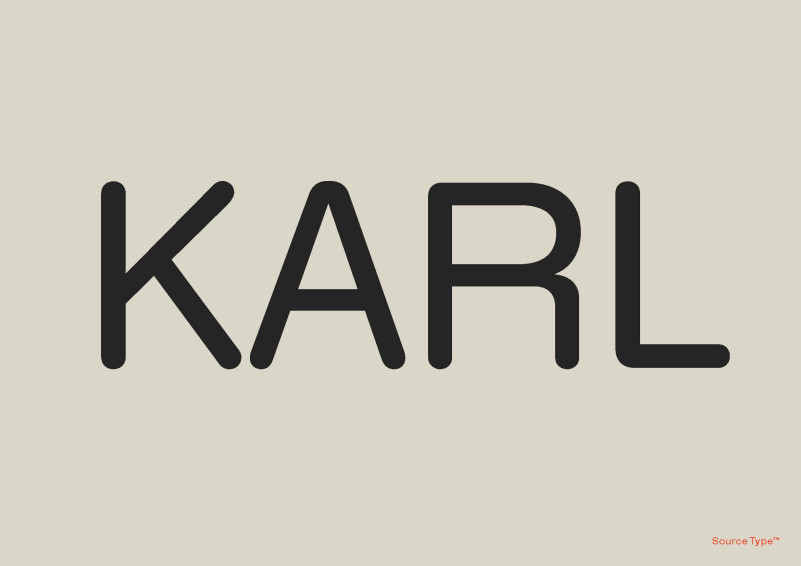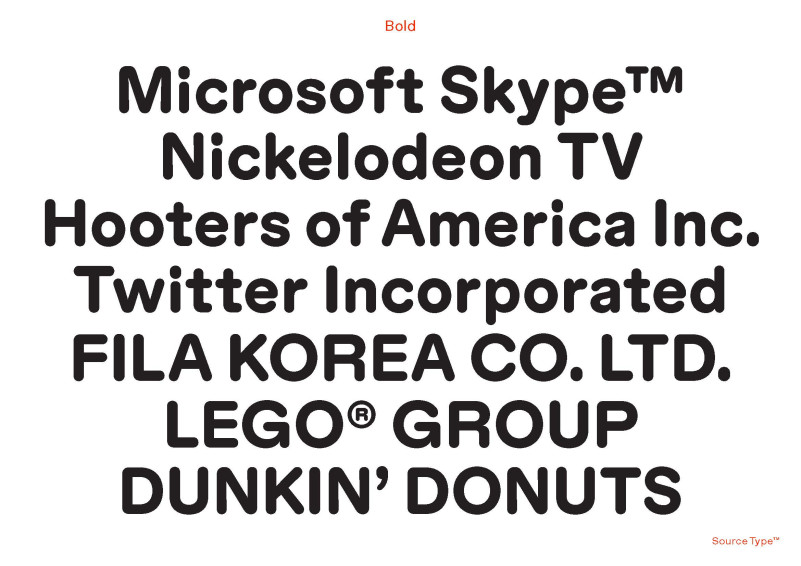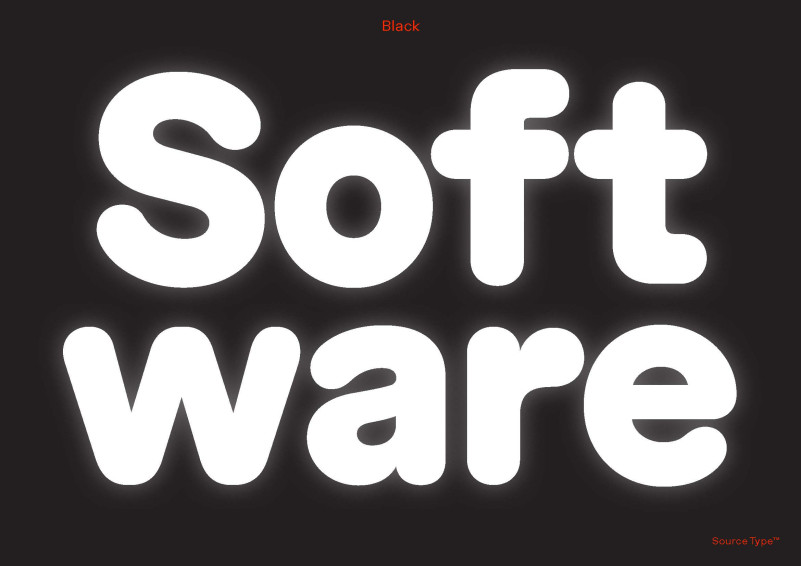
Karl Font
Karl Sans Serif Font Family, The history of rounded type is strange and diverse, from baked bread letterforms to bubbly corporate tech logos. While today rounded type might be a stylistic genre, it’s interesting to understand its evolution as a product of technological or production constraints. Take, for example, wood type where it was easier to mill curved forms as opposed to right angles. Or highway signage, where text would appear blurred from backlighting, making words look different in the day versus the night.
The latter was a consideration for Karl Gerstner in 1964 as a part of a proposed identity for Shell, where the logo is most often seen while driving. Gerstner, together with his agency GGK, proposed a rounded Sans Serif font to reference the viscosity of oil and simulate the effect of light projected through a sign. Unfortunately, the pitch was “received with applause, and rejected with regret” and the typefaces was subsequently shelved in the archives.
Nearly 50 years later, Laurenz Brunner discovered the project during an apprenticeship at GGK and committed to expand on Gerstner’s original pioneering concept. The result is the aptly titled typeface “Karl,” which acts as a homage to its namesake, moving beyond the original cut into a full family of different weights including a monospace and a phatty.